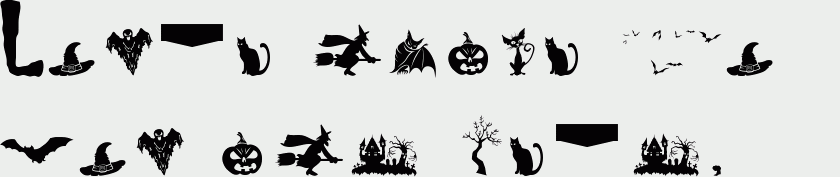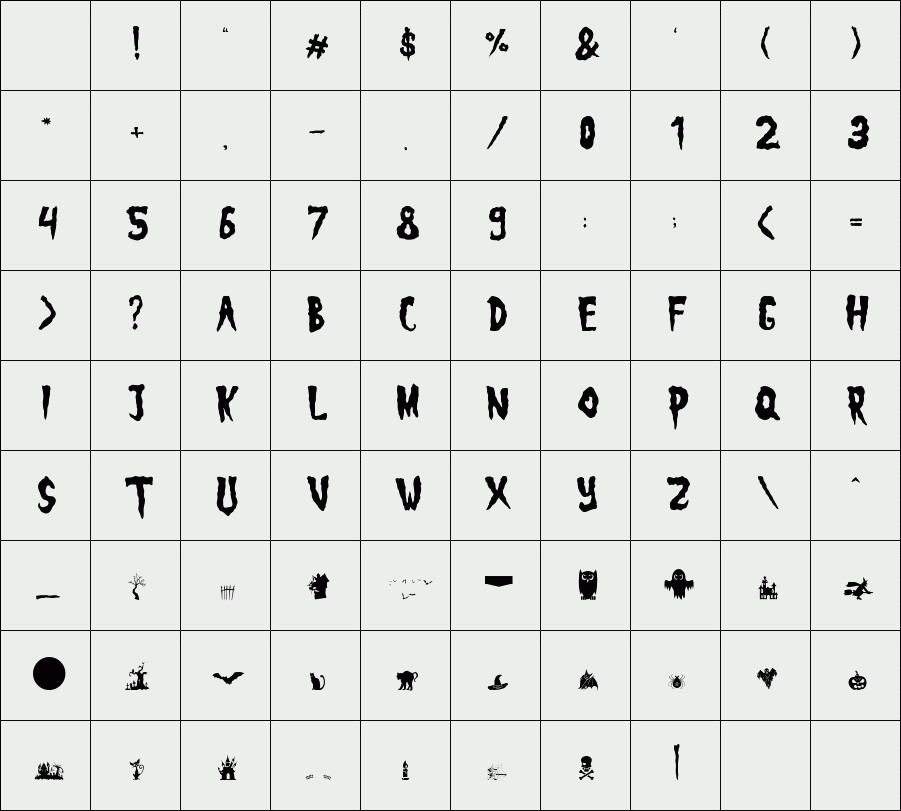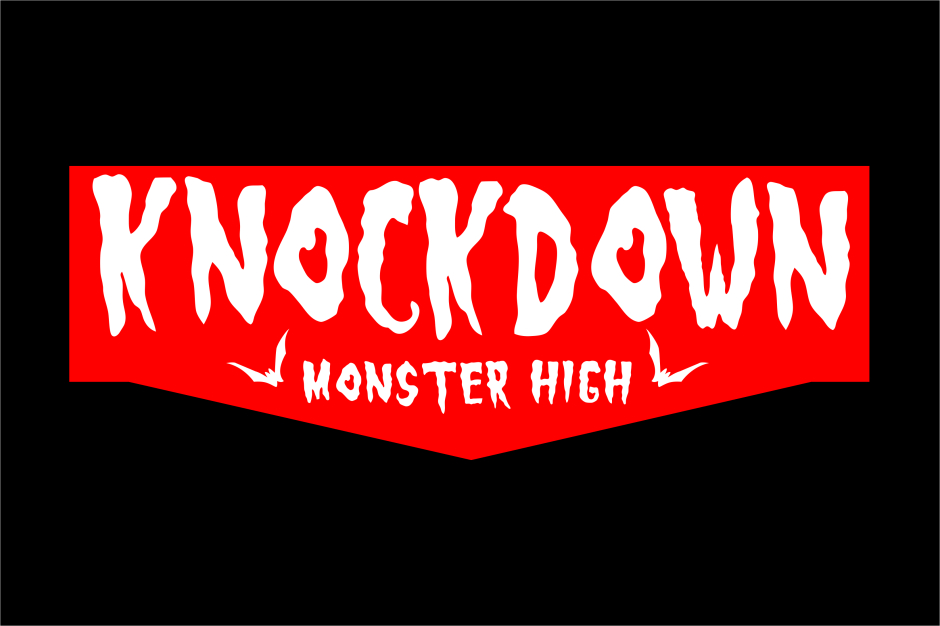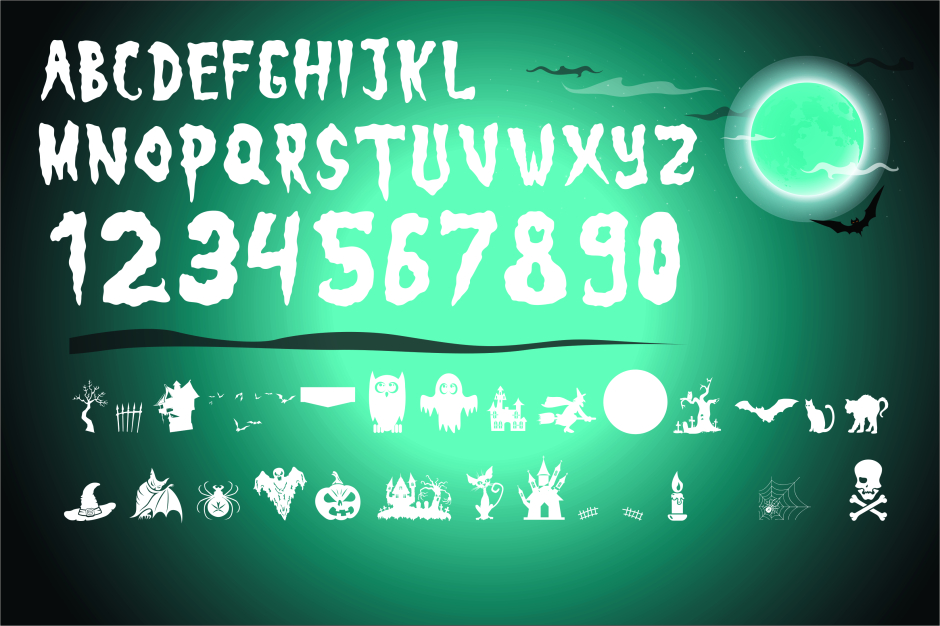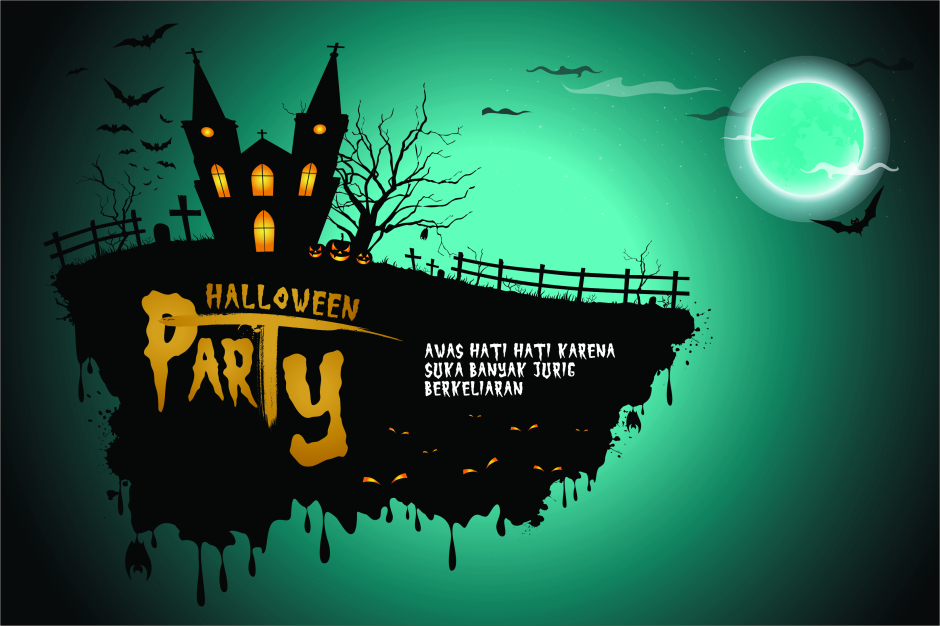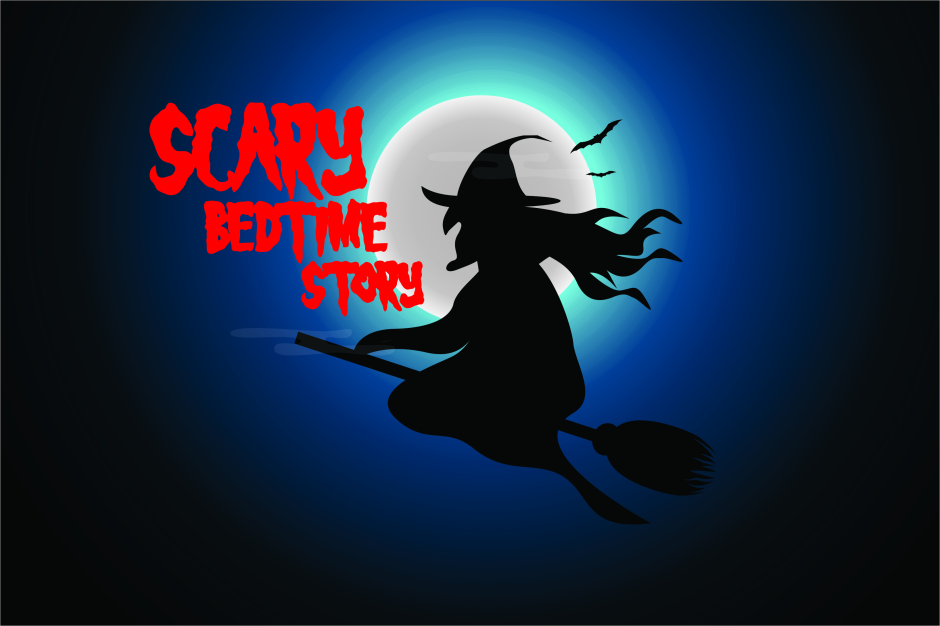
KARLOFF
in the era of 70's famous horror punk band called misfits. most young people there follow the style. the letter was inspired by the band with horror design style, suitable for event posters and other horror